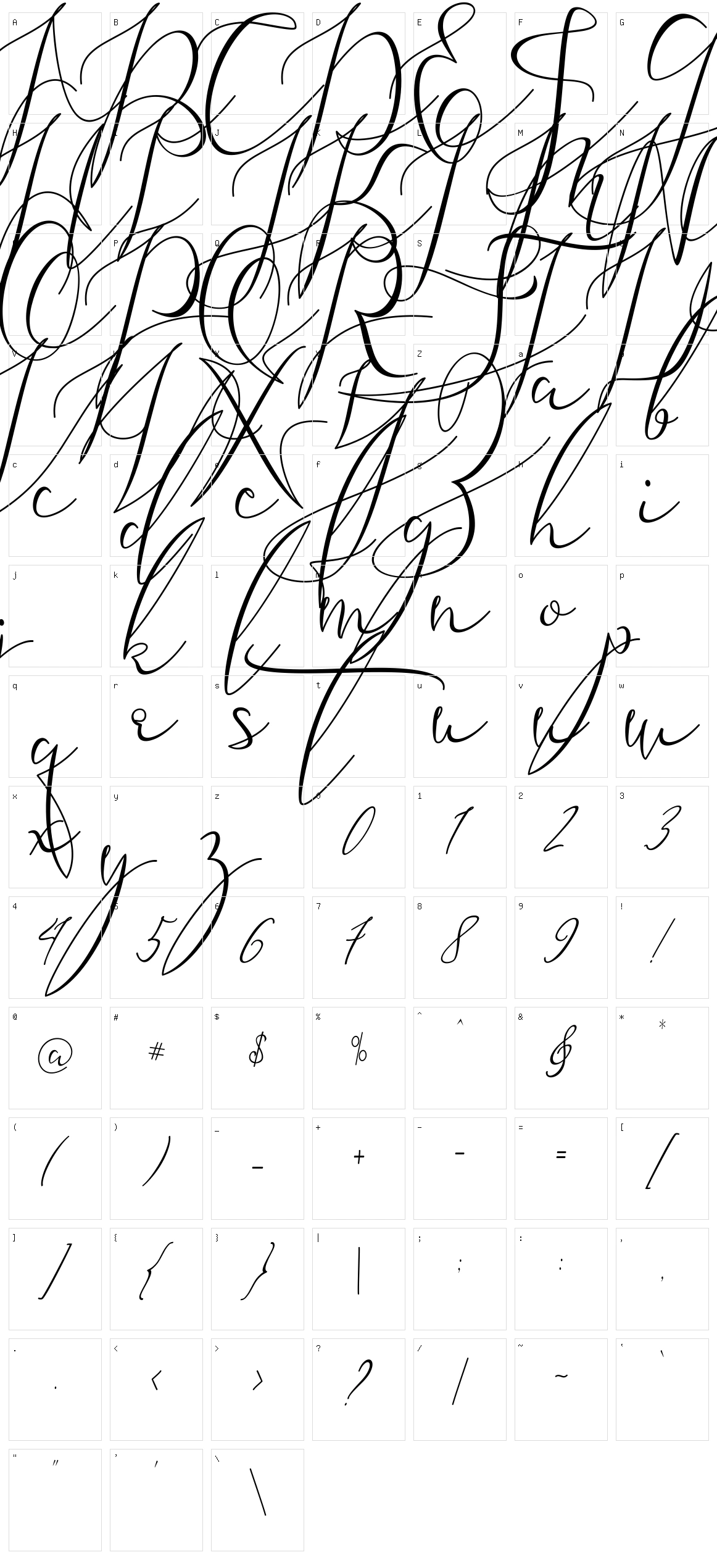
The free font Xcellent Girl is carefully designed by Chairul Art, showcasing a thoughtful balance of creativity and usability and falls under the Script font style. When you download the ZIP file, it contains only 135.89 KB of font files, making it lightweight and quick to download. Please review the license details below to understand permitted usage and distribution rights. If license information is not available, we recommend using this font for personal projects only or contacting the author directly for commercial usage permissions.